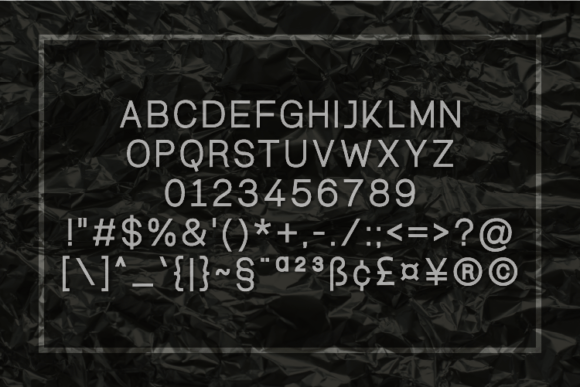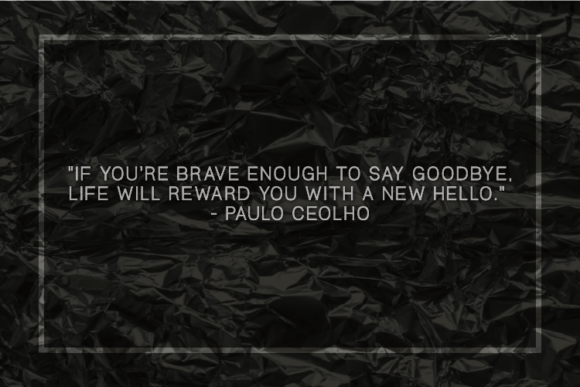
Introduction to Silver Monday Font
Silver Monday is a stunning sans serif font to complement every project you’re working on.
Use it to create beautiful headings, gorgeous invitations, stunning logos, and so much more .
Key Features of Silver Monday Font
Why Choose Silver Monday Font?
Silver Monday Font offers exceptional quality and versatility, making it a valuable addition to your design toolkit. Whether you’re creating for personal projects or commercial use, Silver Monday Font delivers professional results.